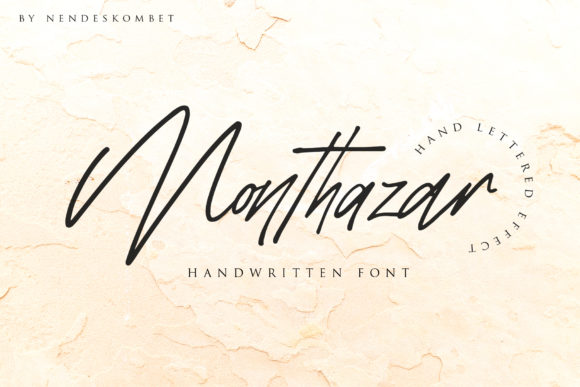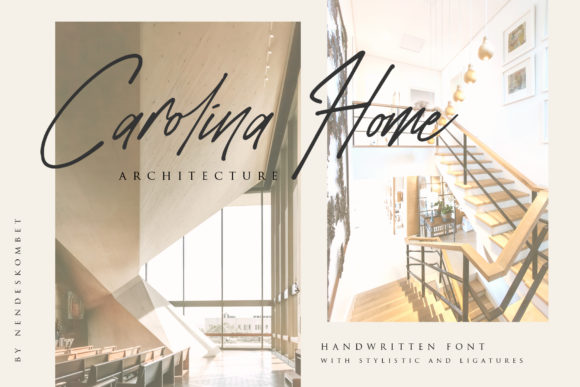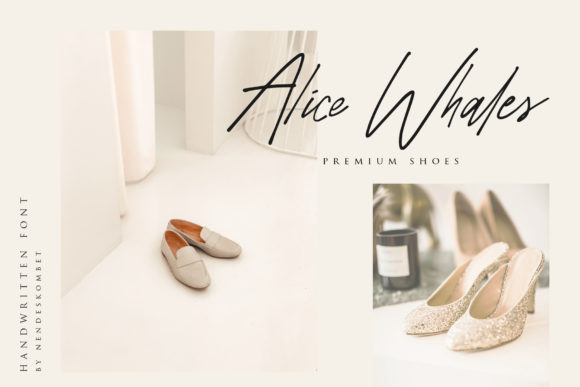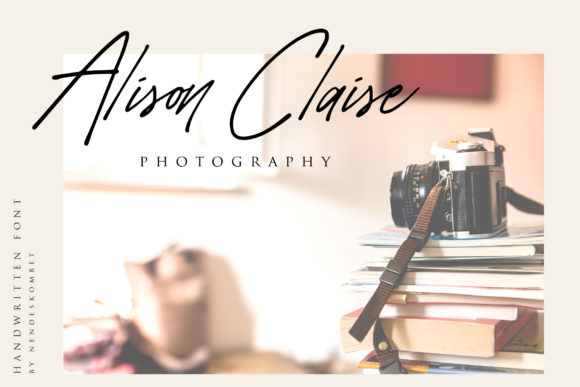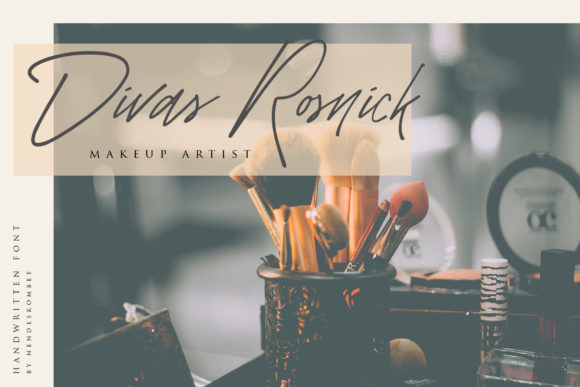
Monthazar Font
About Monthazar Font
Monthazar is a strikingly light and beautiful handwritten font with an authentic feel. It will add a contemporary feel to any design project.